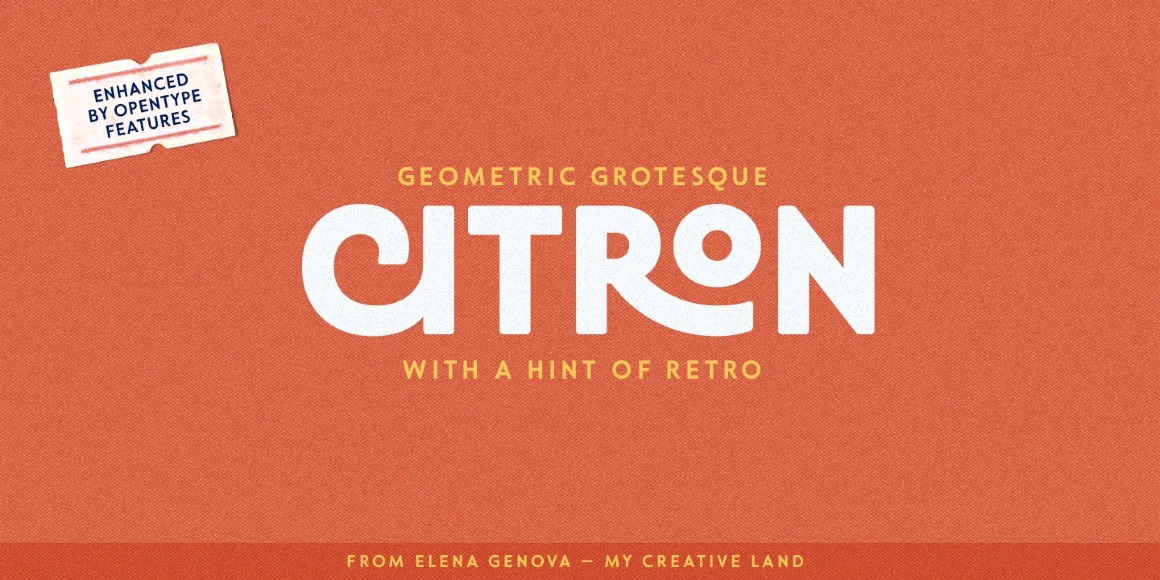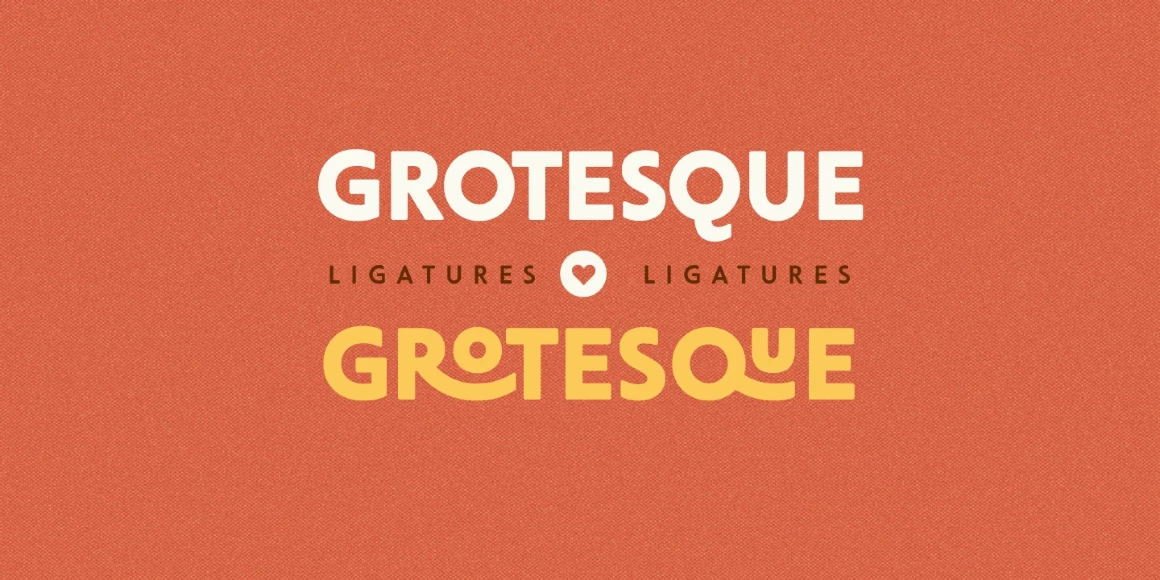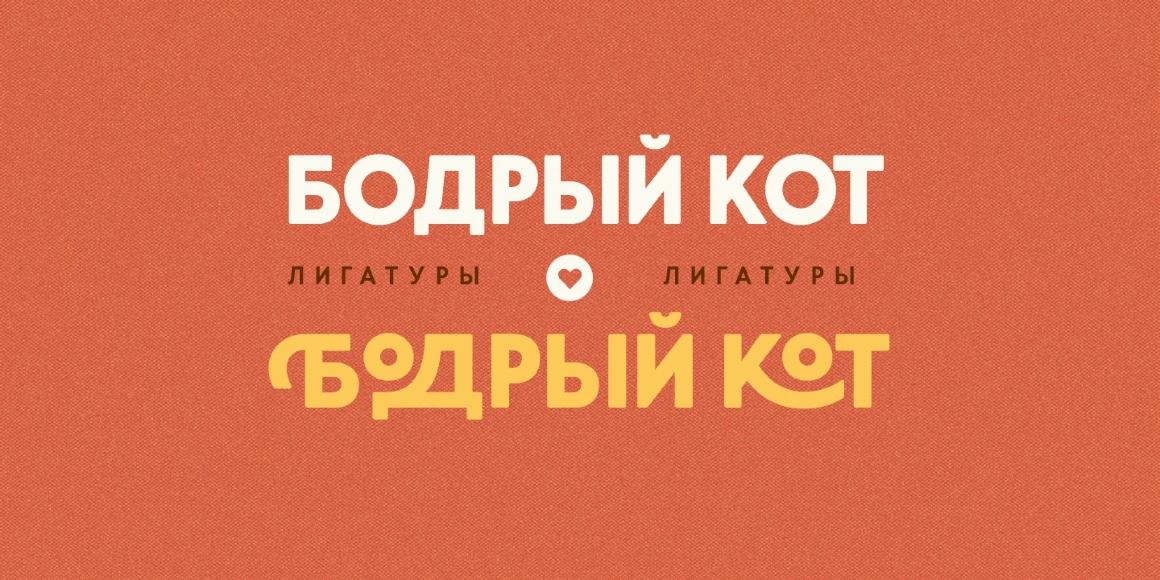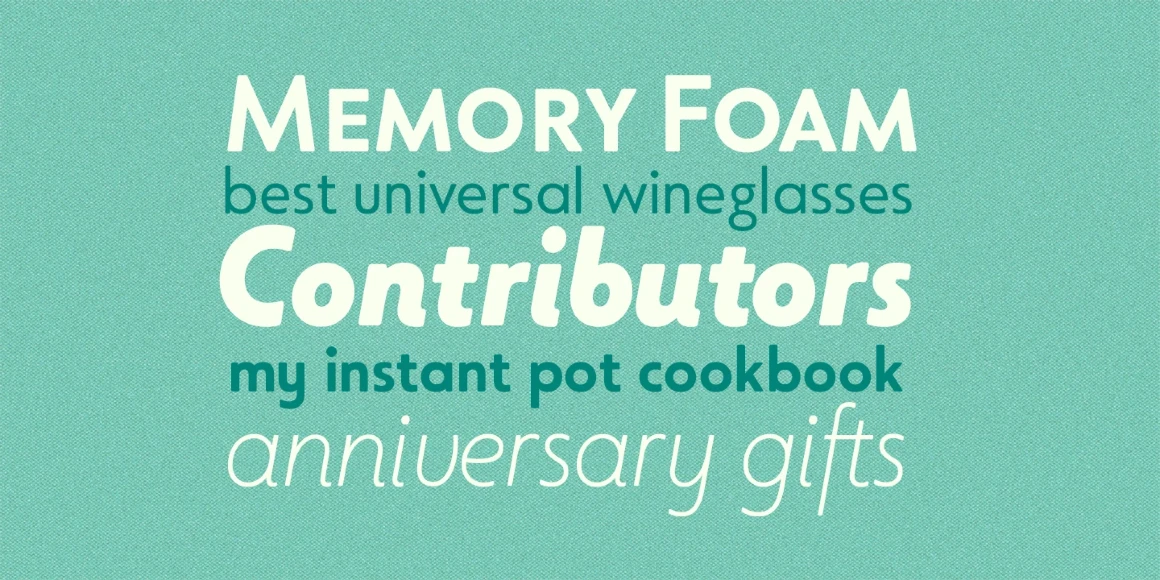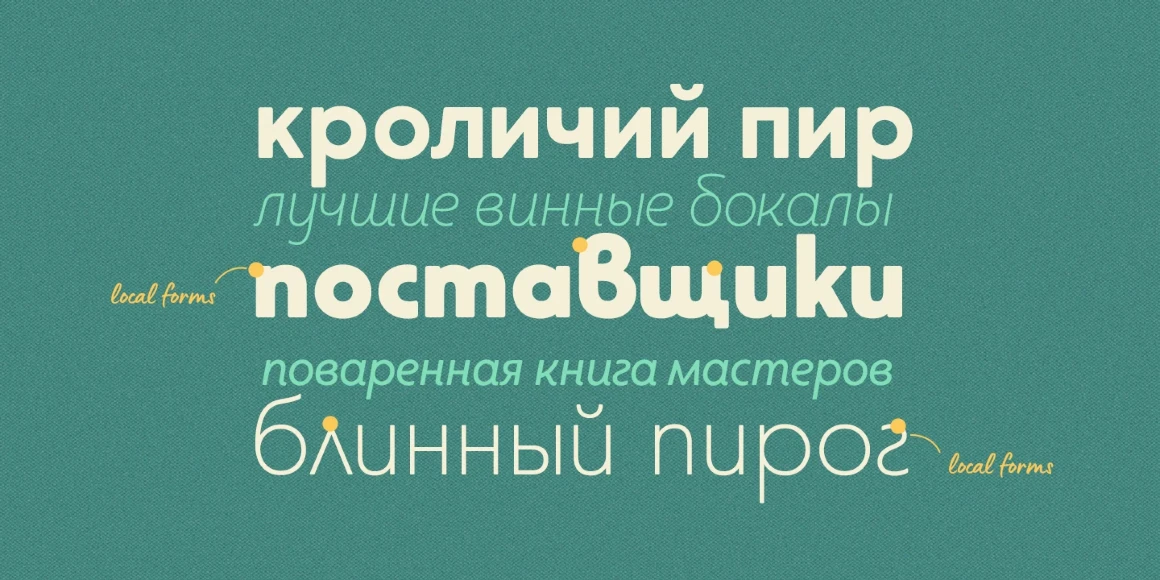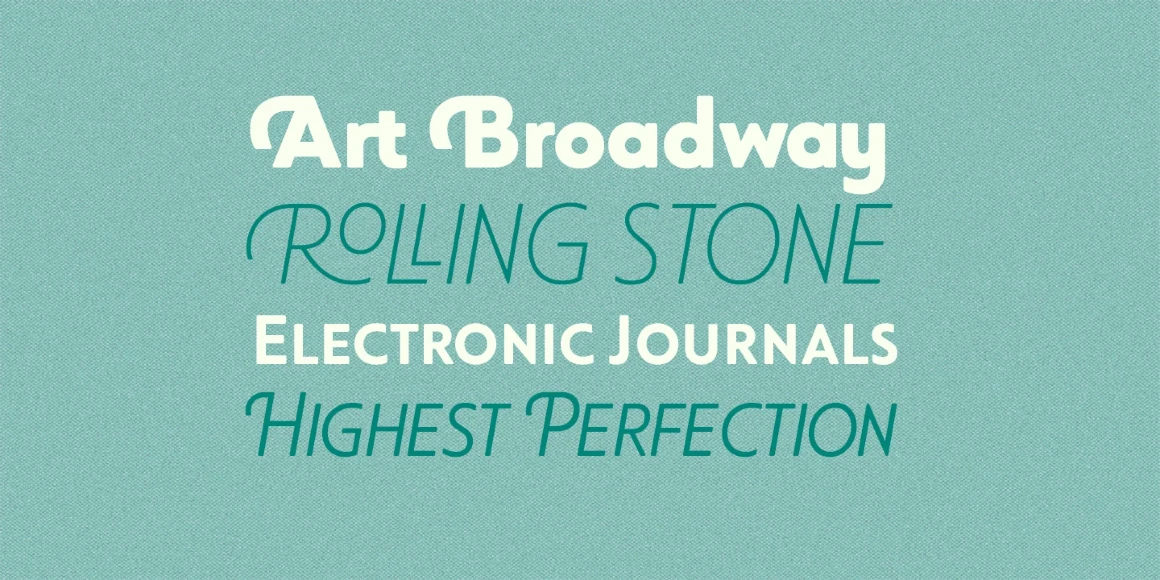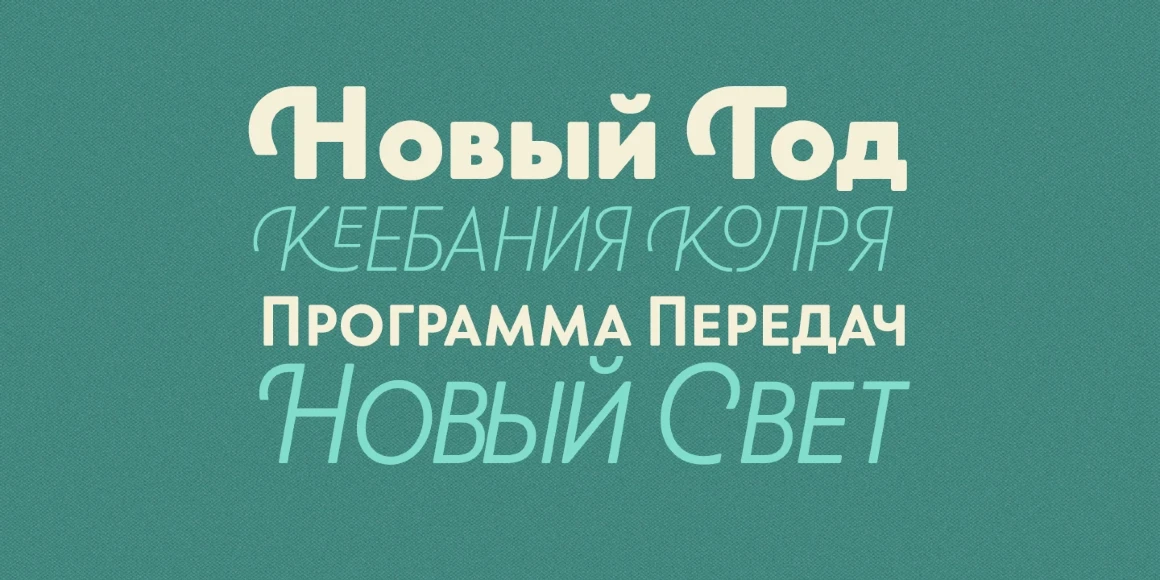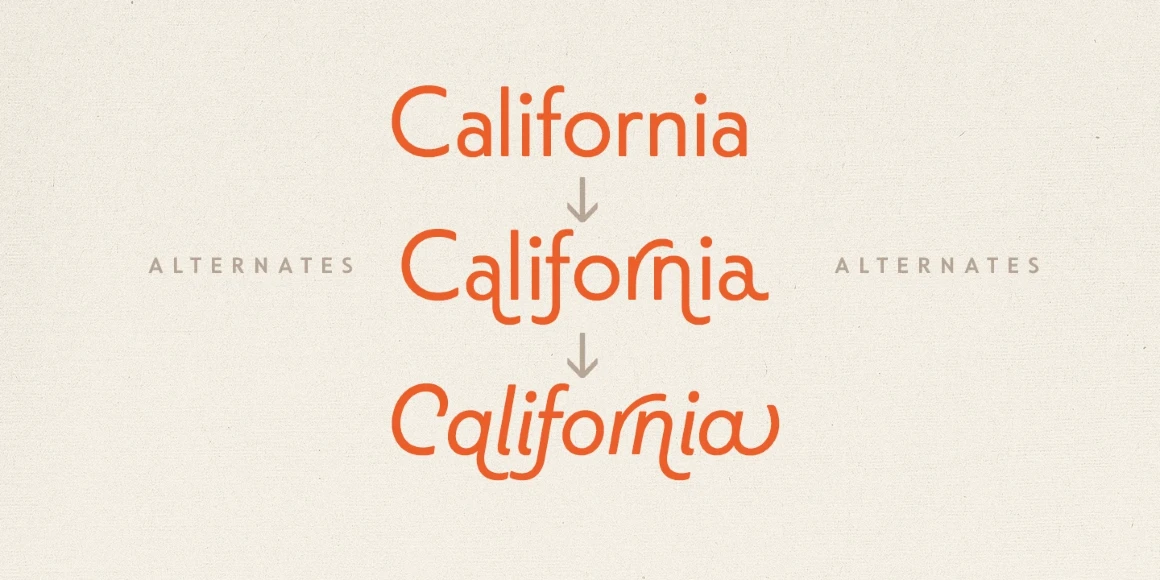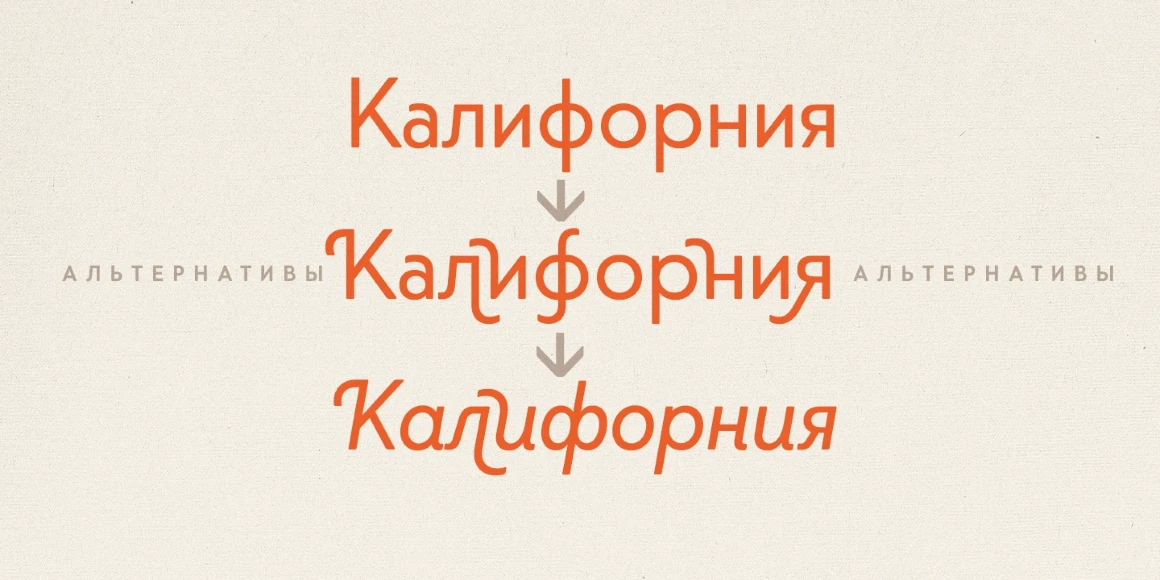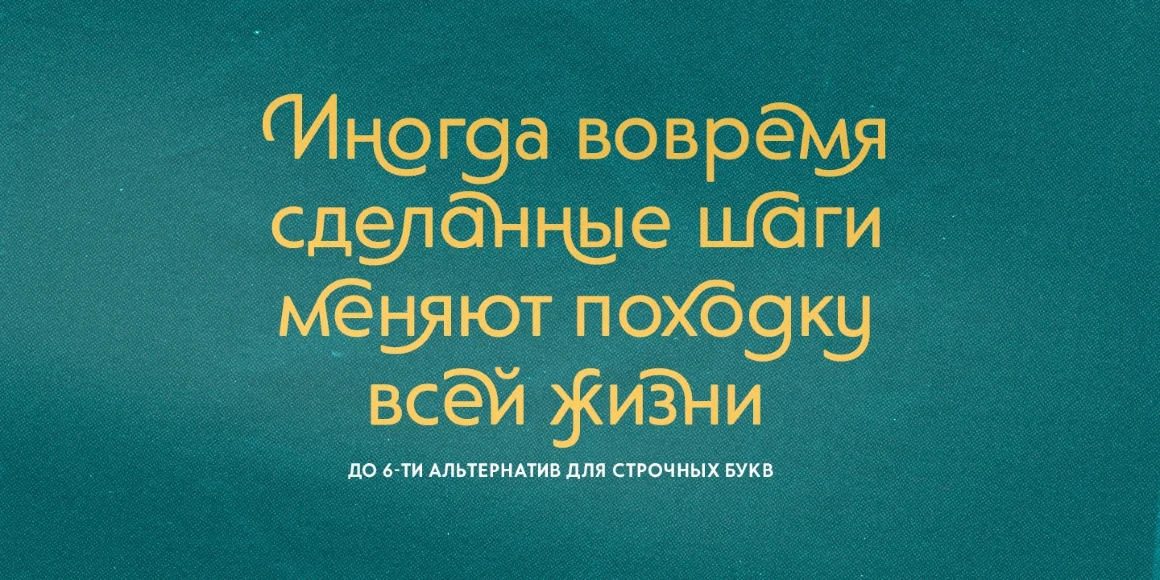
Citron Grotesque
From My Creative Land
Citron Grotesque is a friendly geometric sans serif bursting with hidden typographic potential. Initially inspired by Edward Johnston’s Railway Type and other early 20th-century designs, it evolved into a softer, more versatile, feature-rich family filled with countless alternates perfect for developing charismatic and unique branding, advertising, publishing, packaging, and user interface solutions. Citron is available in 5 weights — Thin, Light, Regular, Bold, and Black — with corresponding italics.
Designed by Elena Genova